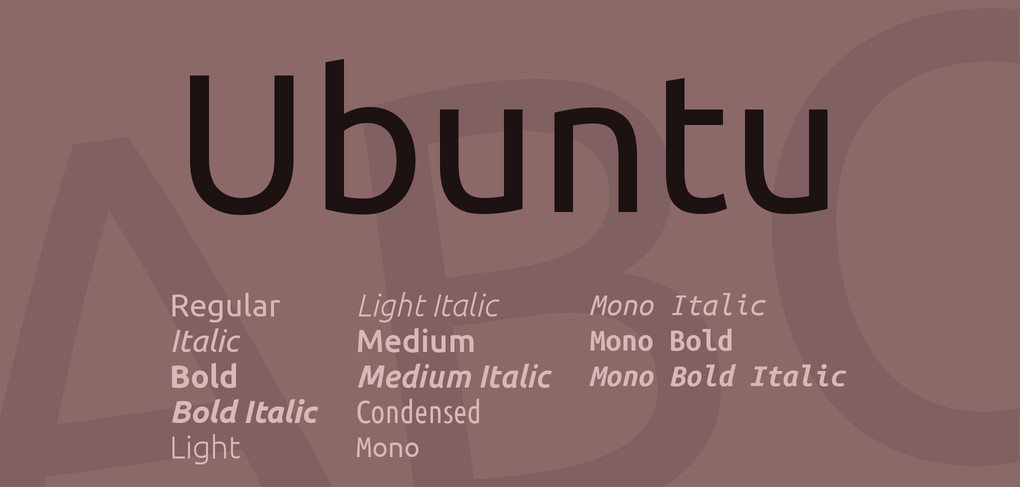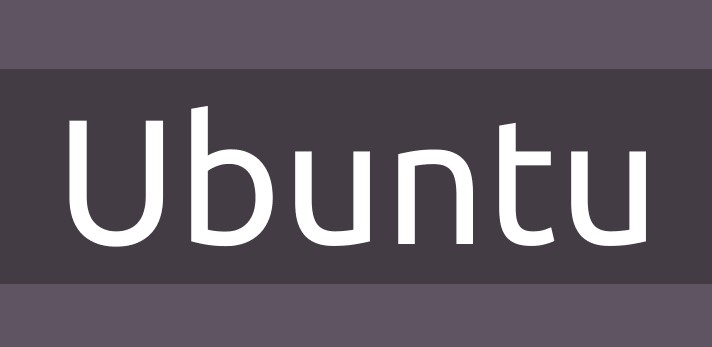
Ubuntu Font
Ubuntu Font is mostly utilized in the windows. This typeface is present inside the google fonts. This is also highly rated inside Microsoft Word. Along with business enterprise organization logos and metal fabricated lettering.
That is an extra lovely and precise san francisco font kind in sans serif typeface circle of relatives. The fashion of this font can be very new and stylish. The one’s fonts are implemented in precise calligraphy patterns and designs of various works of artwork. In case you need to use the one’s fonts on your works you can use it with none hassle.
Ubuntu Font Free You can use this font in all the portray works and different elegant works which is probably very essential to you on your walking area and one-of-a-kind designing possibilities that you like the maximum and most essential. This font may be applied in all special duties of designing as well as calligraphy. First-rate worldwide locations, many humans aren’t aware of these haymaker font patterns and they even do not understand what shape of this. Download There are styles of markets.
One in every of that may be a demo model is available as in reality, all of us. It consists of characters like higher, lowercase, numerals. Additionally, we are imparting you with excellent information approximately this font fashion proper here with none price. As indifferent calligraphy patterns, this style is most well-known.